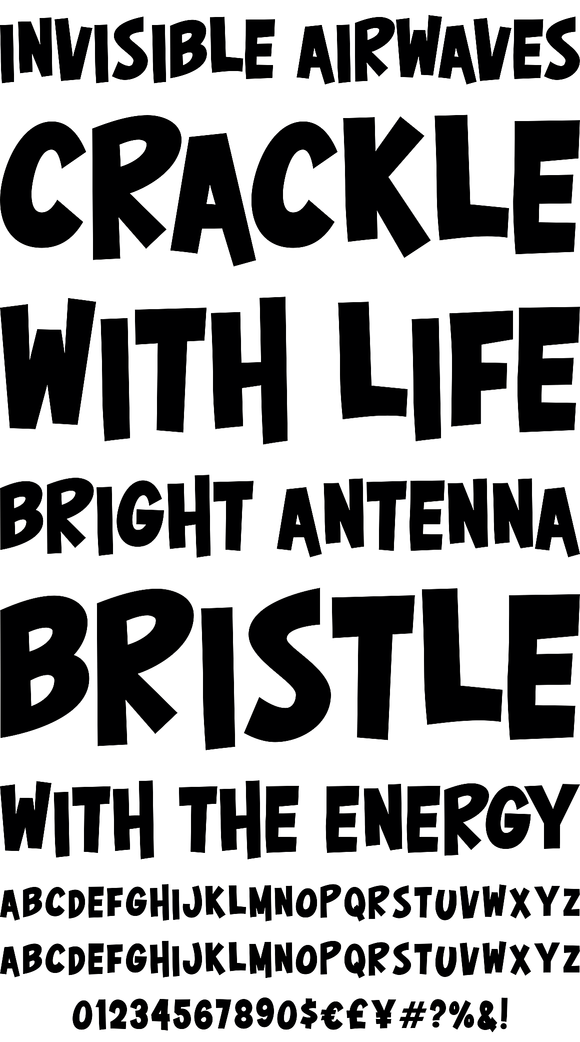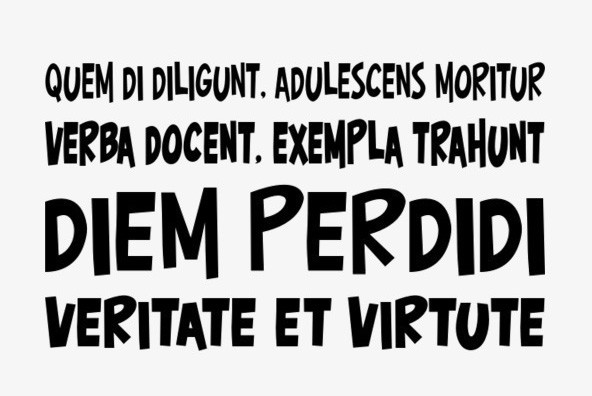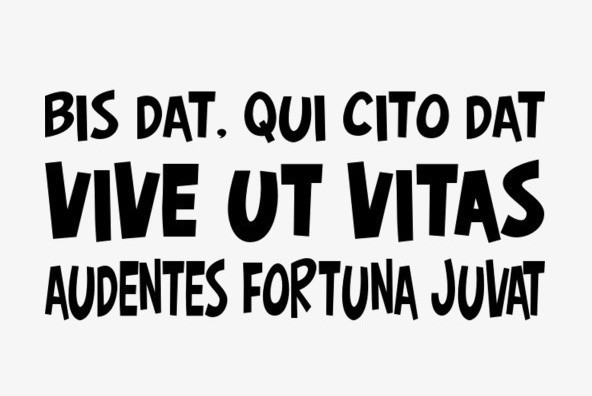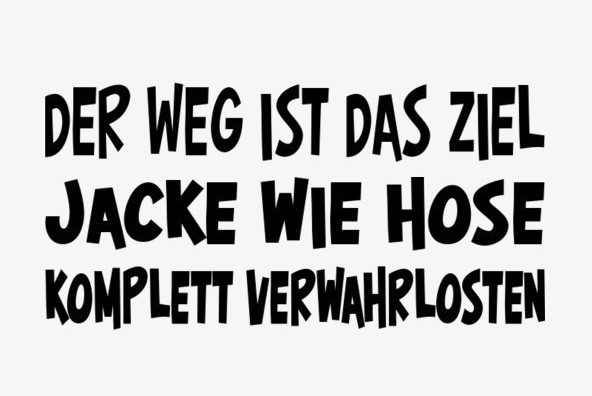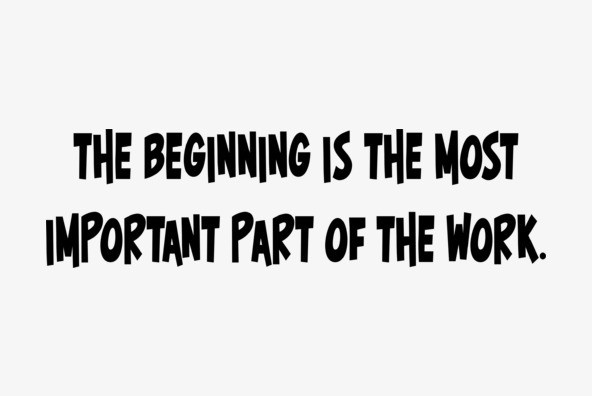
Surfer Shop
Foundry: Breaking The Norm
Hang ten with Surfer Shop, a playful display typeface that is perfect for beachside living! Comes with alternate caps and a fun fresh flavor!